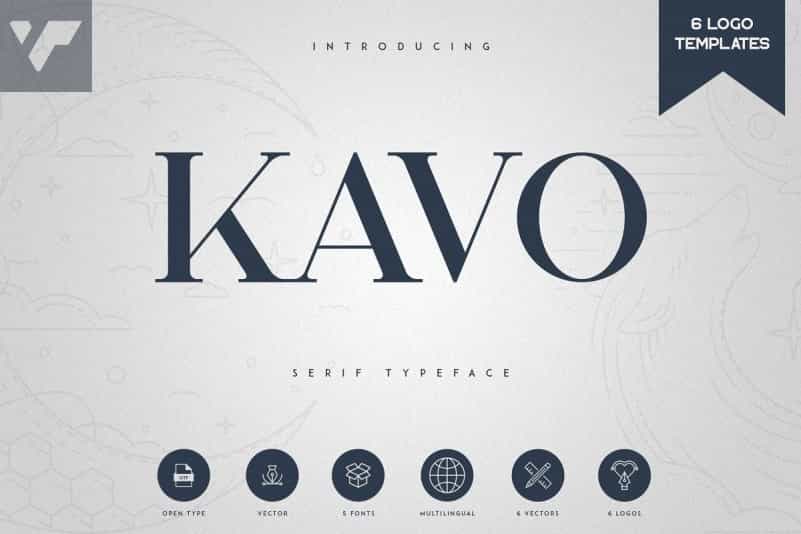
Discover Kavo Modern Serif Typeface, part of the Serif collection—a versatile and unique font perfect for adding a personal touch to your projects. Download it for free and enjoy crafting designs with style, from invitations to social media posts. This font is available exclusively for personal use, giving you the freedom to create without limits. Unlock your creativity with Kavo Modern Serif Typeface today!
Kavo is a clean, modern typeface with 5 weights, 6 amazing vector designs, 6 logo templates and multilingual support. It’s very versatile font that looks great in both large and small sizes!